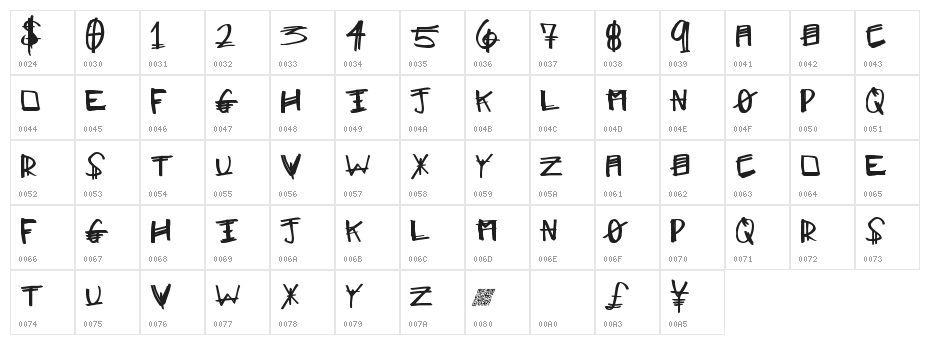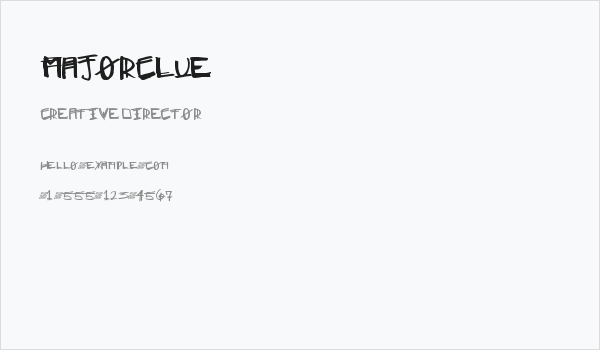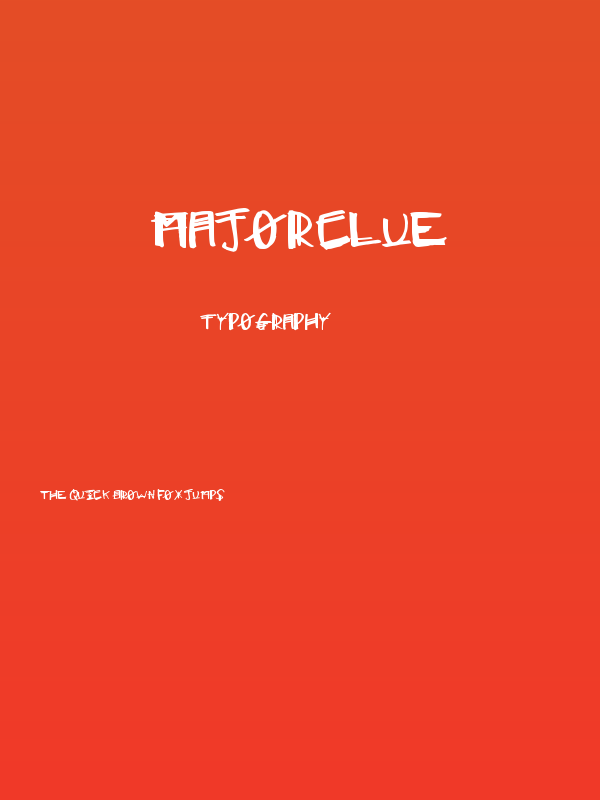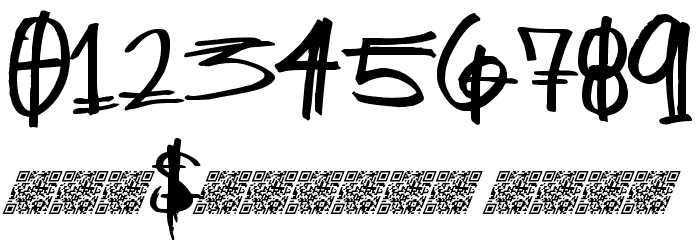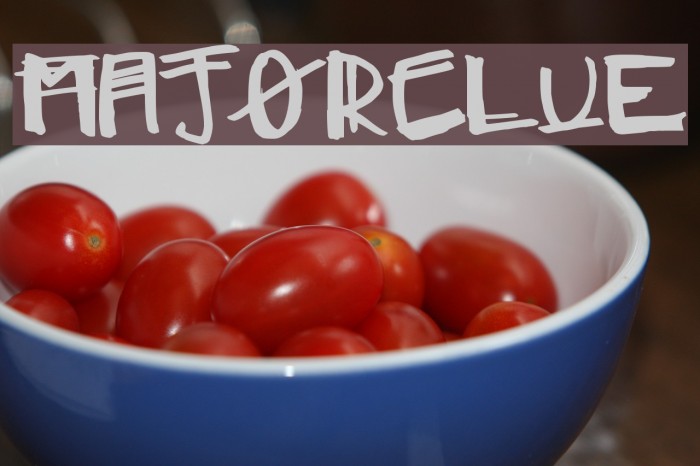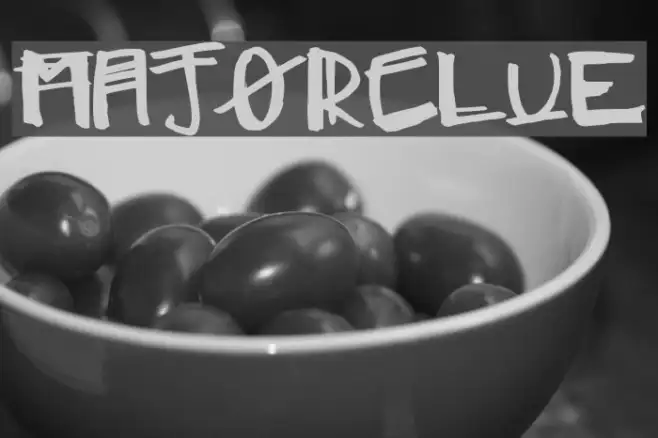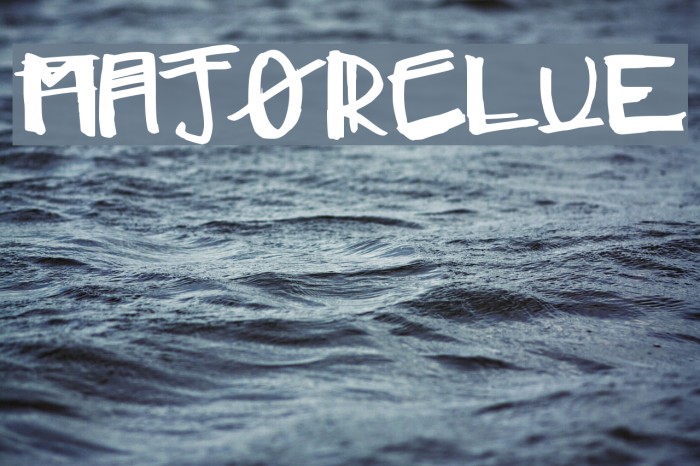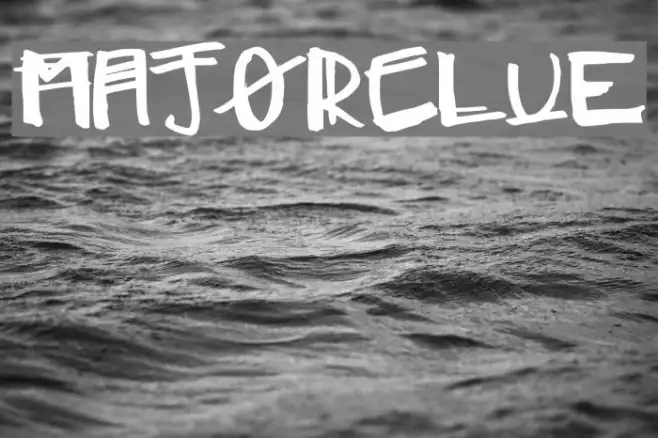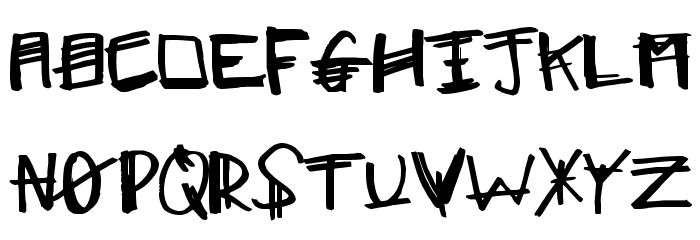
MajorClue Font
MajorClue Description
This font features a bold and edgy design with a hand-drawn aesthetic. The characters are irregular and dynamic, giving a sense of movement and energy. The uppercase letters have a graffiti-like appearance, with strokes that vary in thickness, adding to the raw and expressive style. The lowercase letters maintain this energetic feel, with unique shapes and angles. Numbers and special characters follow the same design principles, ensuring consistency across the font. This style is perfect for projects that require a bold statement or an urban, rebellious vibe.
MAJORCLUE UPPERCASE
MAJORCLUE LOWERCASE
MAJORCLUE OTHER CHARS
| Overall Style | Modern, Urban, Edgy |
| Proposed Projects | Ideal for street art designs, music album covers, edgy branding, and urban-themed posters. |